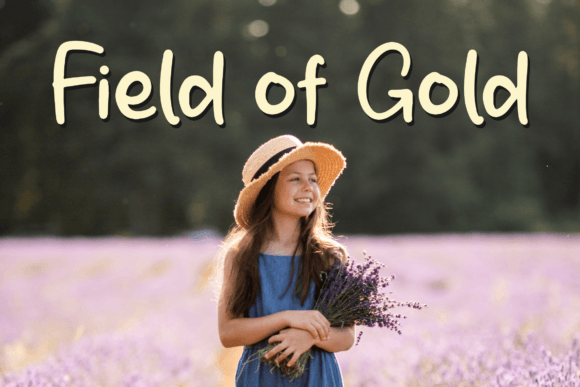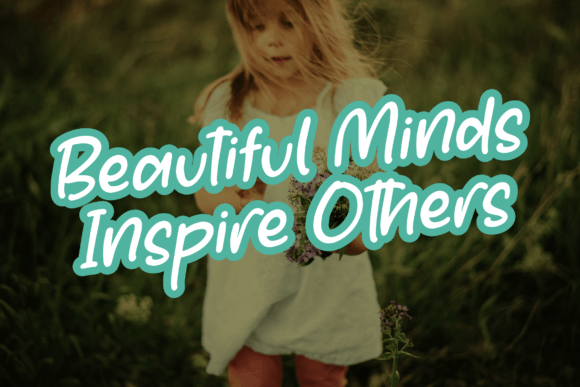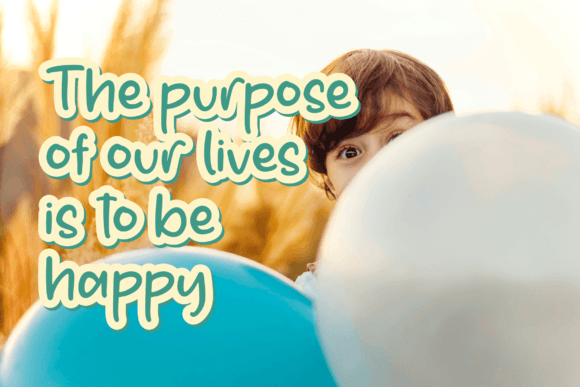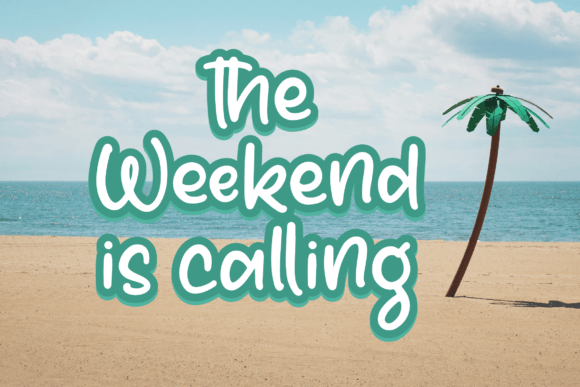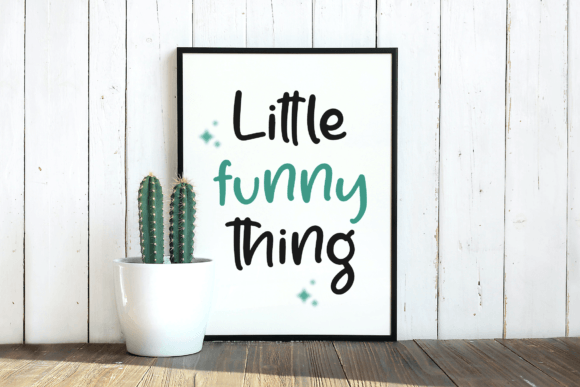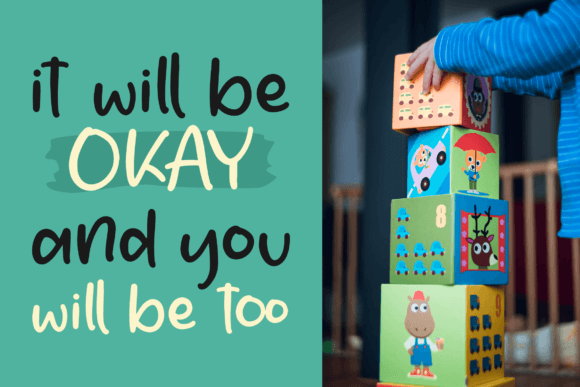
Introduction to Rinkle Belle Font
As designers, we’ve all been there – staring at a blank canvas, struggling to find the perfect font to bring our creative vision to life. But what if that perfect font was hiding in plain sight, waiting to add a touch of whimsy and playfulness to your next design project? Enter the Rinkle Belle Font, a delightful and charming handwritten font that’s sure to bring a smile to your face and a spark to your creativity.
Whether you’re working on a cartoon-related design, a children’s game, or just a simple quote that needs a bit of flair, the Rinkle Belle Font is a valuable resource that’s sure to elevate your design to the next level. With its high-quality, free download option and transparent background, you can trust that this font will be a reliable companion for all your creative projects.
- Rinkle Belle Font is a high-quality design resource ideal for creative projects, offering a unique and elegant touch.
- The font includes a comprehensive set of characters, including uppercase and lowercase letters, numbers, and special symbols.
- This font is perfect for designers and artists looking to add a touch of whimsy and sophistication to their creative projects.
Honest Review: Rinkle Belle Font
I recently stumbled upon the Rinkle Belle Font, and I must say it’s been a game-changer for my design projects. This free download has been a fantastic addition to my design resource library.
- ✨ High-quality font: The Rinkle Belle Font boasts a beautiful, intricate design that’s perfect for creative projects.
- ✨ Transparent background: This font is a dream to work with, as it has a transparent background that makes it easy to overlay on any image or background.
- ✨ Versatile: The Rinkle Belle Font comes in various styles and weights, making it perfect for a wide range of design applications.
Overall, I’m thoroughly impressed with the Rinkle Belle Font. Its high quality, versatility, and transparent background make it an excellent choice for any design project. While it may have a few limitations, I believe it’s well worth the download. If you’re looking for a reliable design resource, I highly recommend giving the Rinkle Belle Font a try.
The Rinkle Belle Font is a high-quality, free download font perfect for any creative project. With its transparent background, it’s ideal for adding a touch of elegance to your designs.
The Rinkle Belle Font is suitable for various creative projects, including:
- Business cards and branding materials.
- Artistic and creative projects.